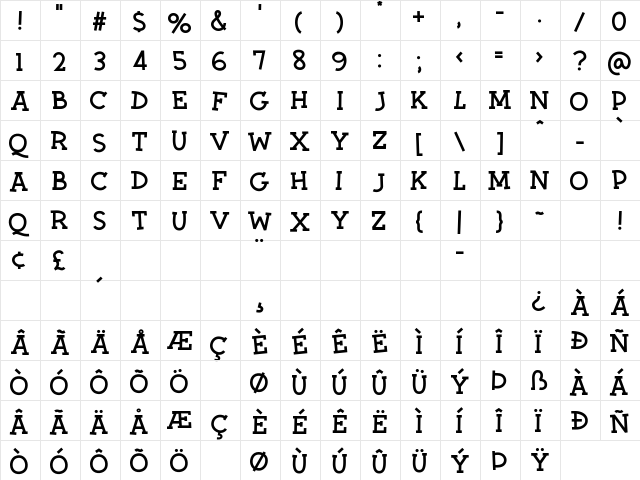
Twiddlestix Regular
Design Context for Twiddlestix Typeface
Twiddlestix offers clean, dependable letterforms without strong stylistic allegiance, making it a practical choice for designers who need flexibility.
Pro Tip: Pair Twiddlestix with a font of contrasting weight or personality to build a more expressive typographic hierarchy.